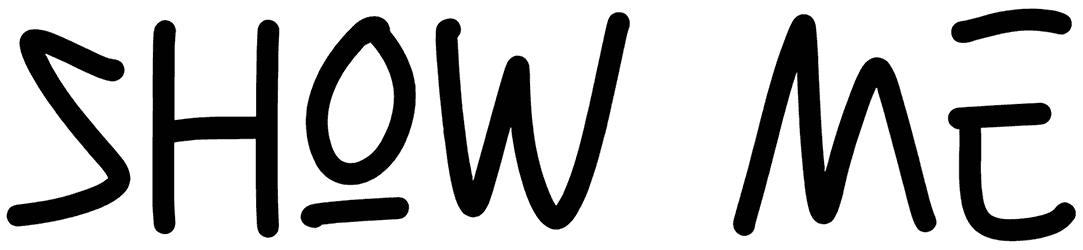
Show Me Font
Have you tried our marker fonts and how well they can increase the friendliness of your text? If you’re still not quite sure, Show Me can settle this for you. With such a light design, keeping things intimate, you’ll have all the attention to yourself.
The lowercase letters aren’t there, but so what? In the end, it’s that childish aura that counts. Just sit back and see how this all-caps handwritten font handles your kids’ designs, hoodies, and stationary item branding.